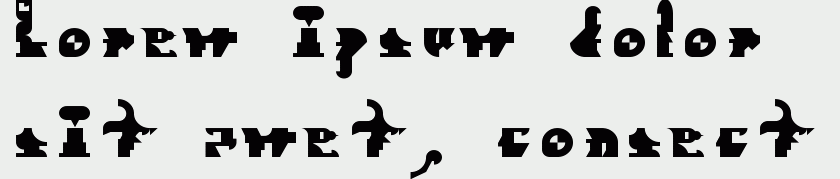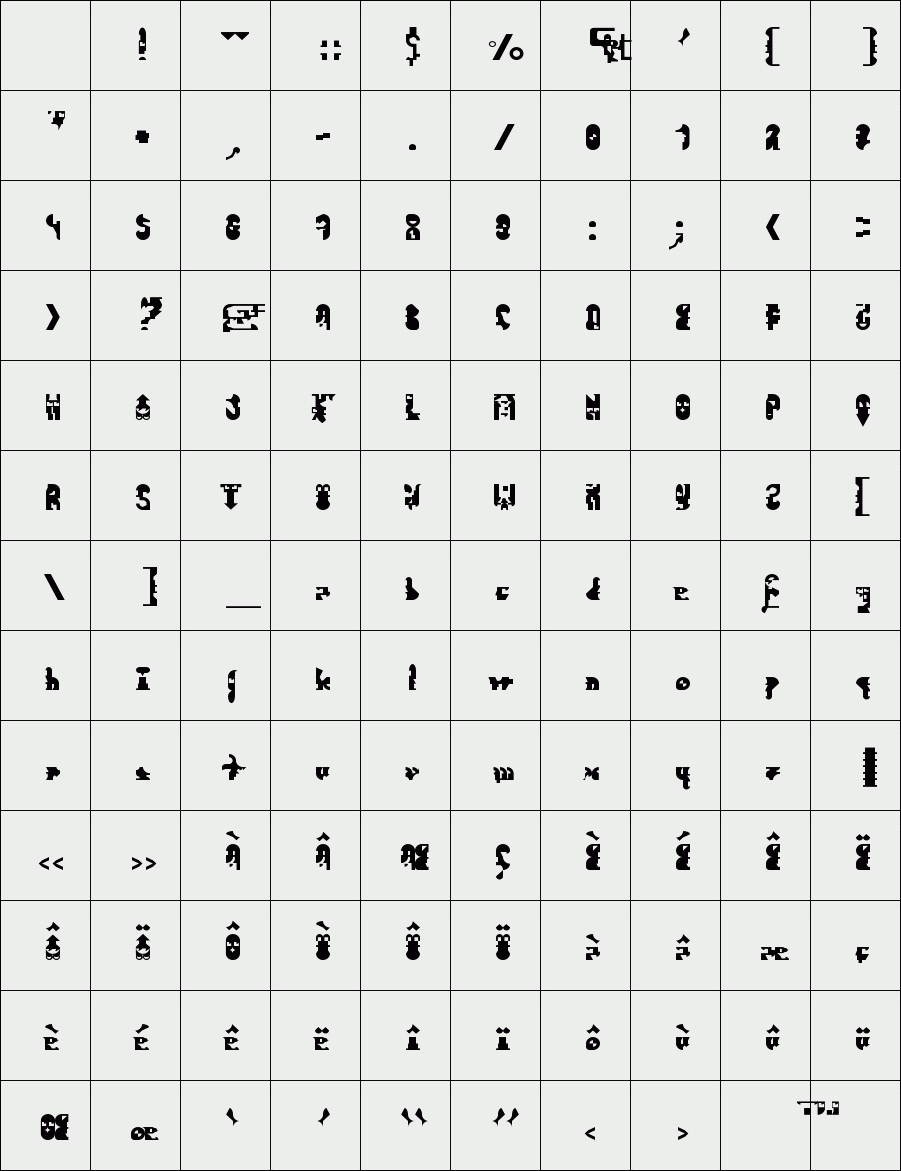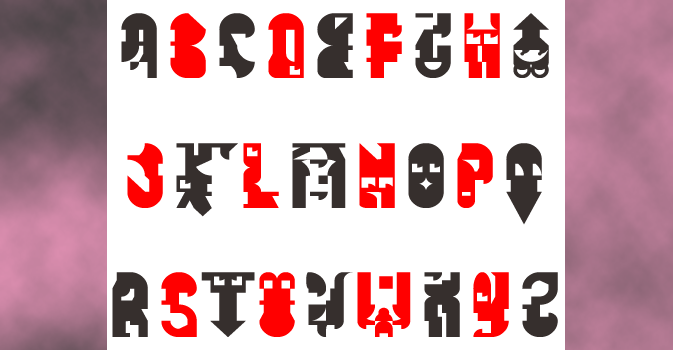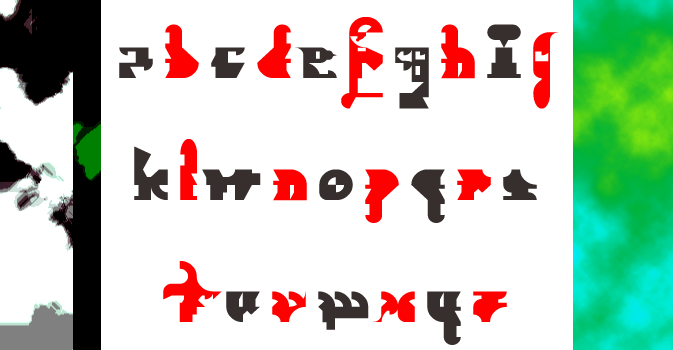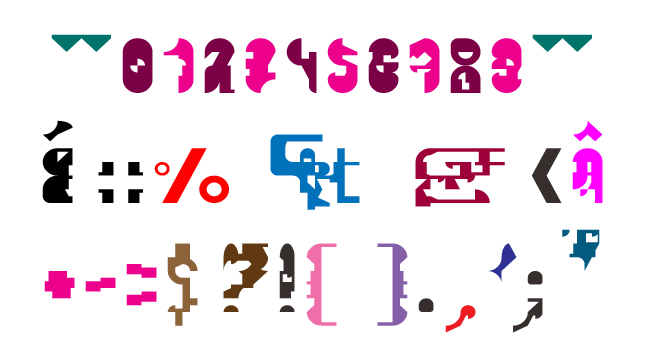
trAUMa 69 / Medieval Sweetshop
"Medieval Sweetshop", like all the "trAUMa" series, works at the frontier between Art & Type Design, Figuration & Abstraction, each font is a comprehensive world in which every glyph is a "living" entity. But put together they can produce your messages in the most accurate way.